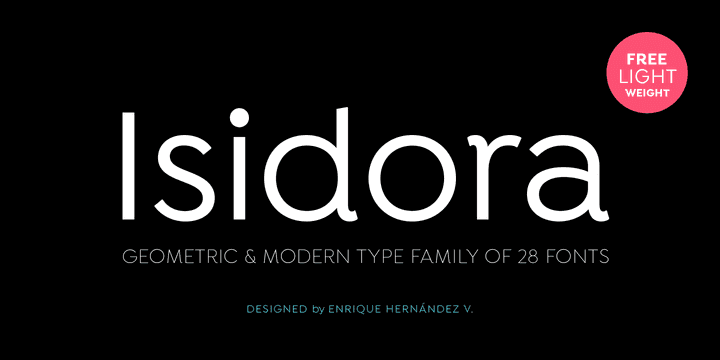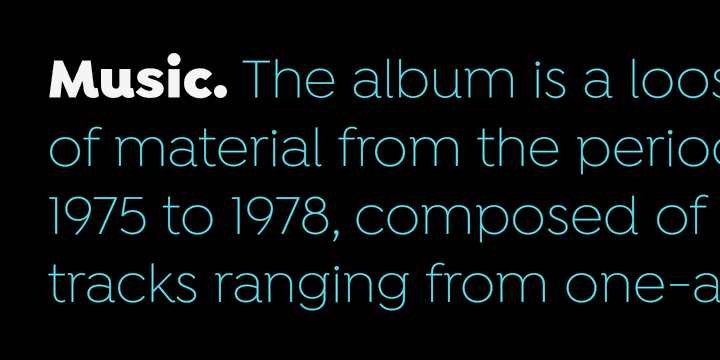
Isidora is a modern geometric font which is based on the early 20th Century typefaces but at the same time it incorporates modern design elements. Even though it has a strong structure, its round terminals make it look more friendly and emotional; the diagonal cuts soften the effect for a humble and comfortable finish.